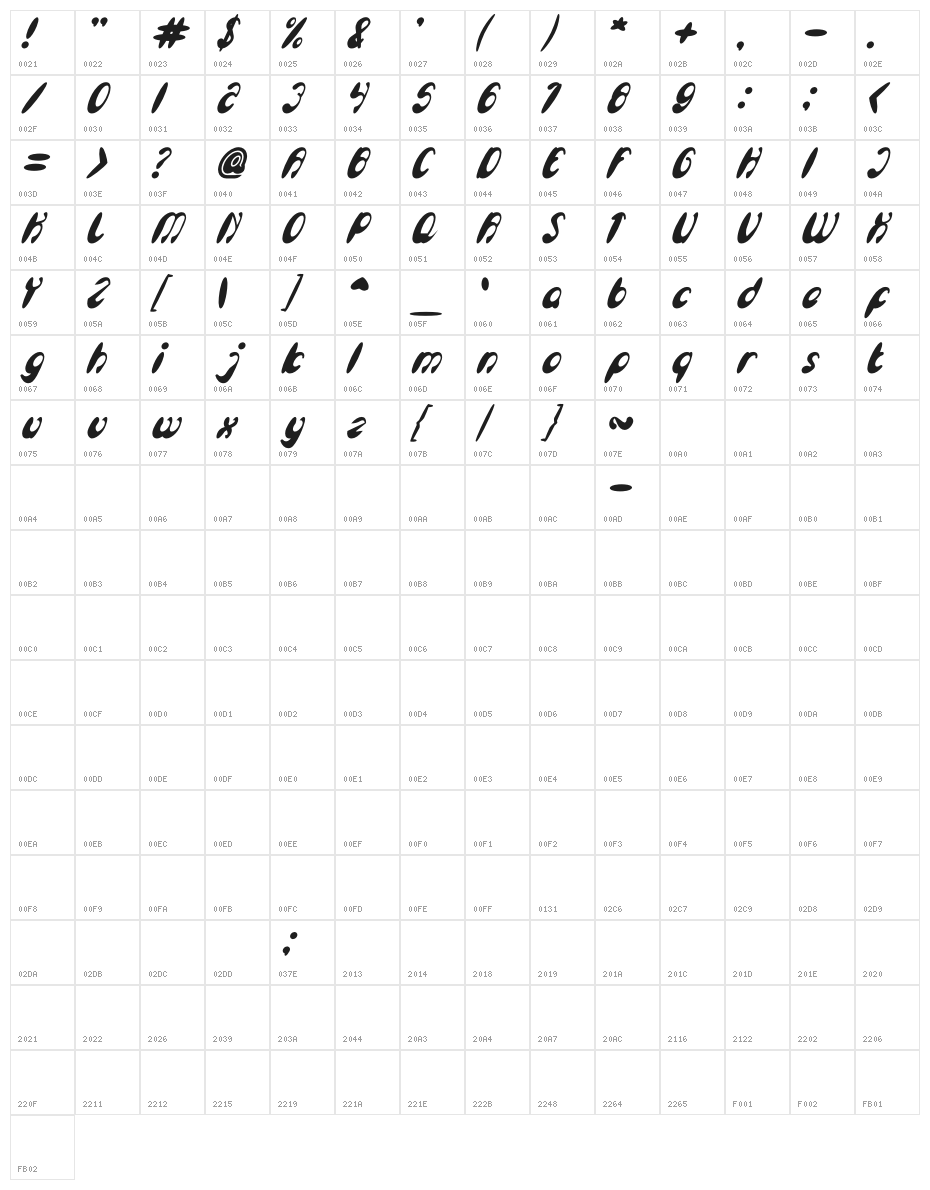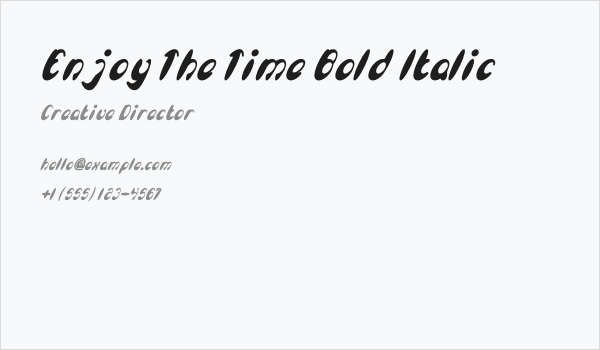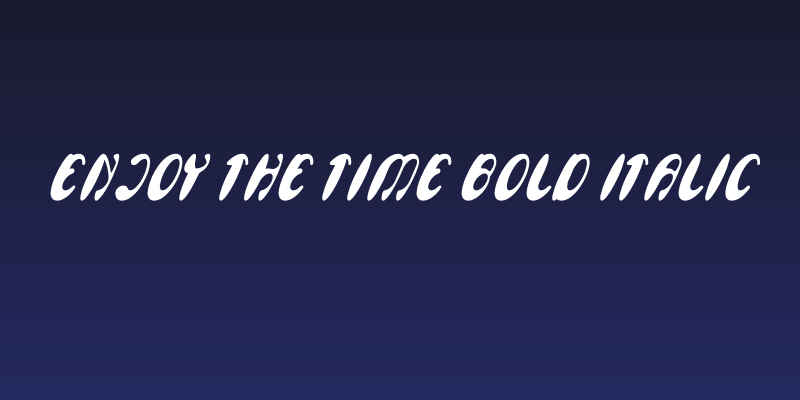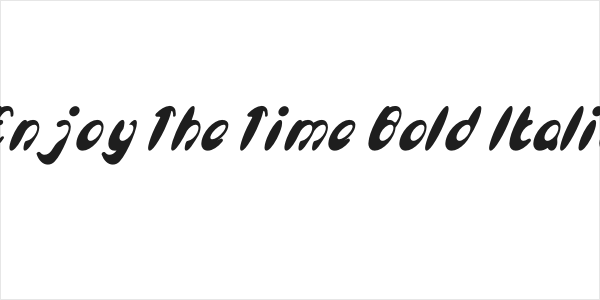
Enjoy The Time Bold Italic Font
Enjoy The Time Bold Italic Description
This font features a bold and italic style with a playful and dynamic appearance. The letters are rounded and fluid, giving a sense of movement and energy. The uppercase and lowercase characters maintain a consistent flow, with the uppercase letters being slightly more pronounced. The numbers and special characters follow the same design principles, ensuring uniformity across all glyphs. The overall look is modern and artistic, making it suitable for creative projects that require a touch of whimsy.
| Proposed Projects | Ideal for posters, branding, and creative designs that need a lively and energetic feel. |